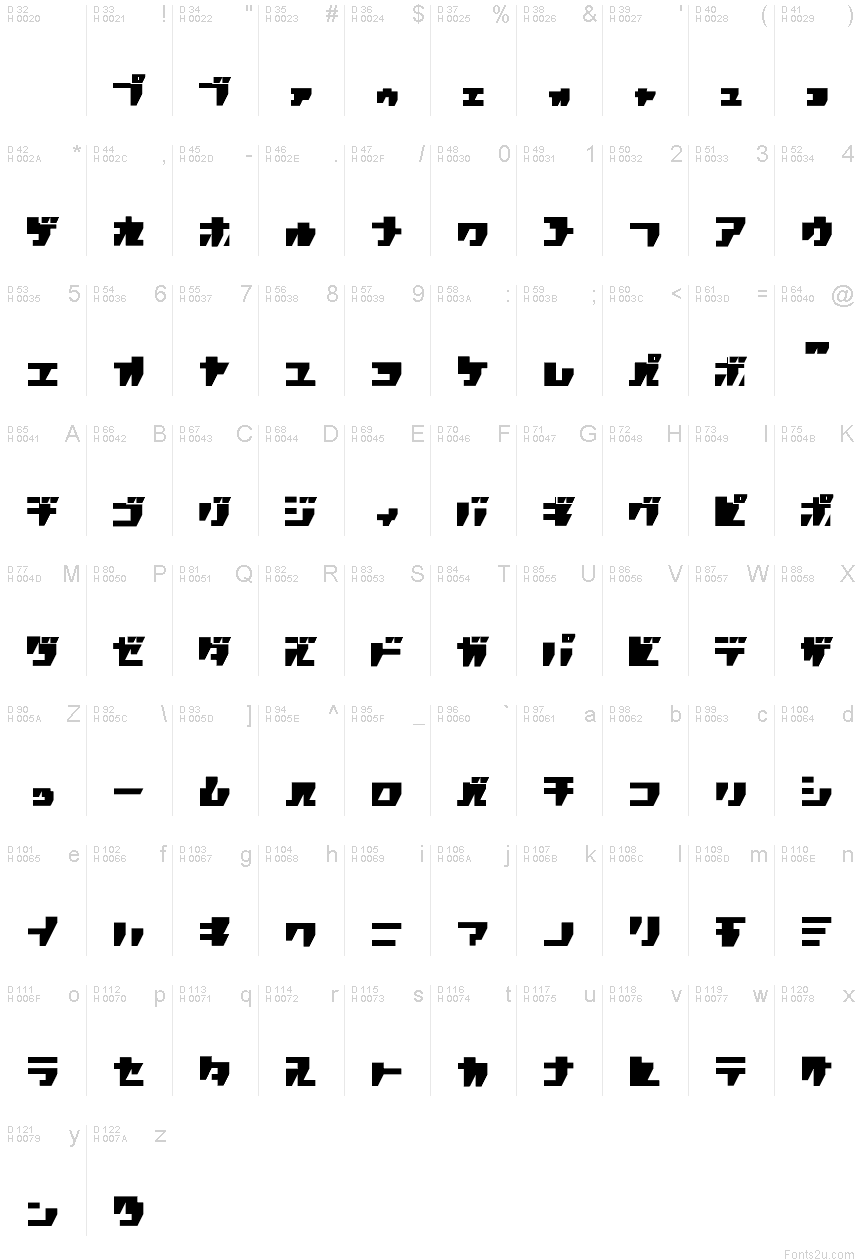
R.P.G. KATAKANA
R.P.G. Katakana, by Akihirooya Kozoji Nagoya, is a free Japanese display font with a loud arcade-era Katakana feel. The letters are built from chunky black blocks, with clipped corners and squared notches that make the alphabet feel like signage from a retro game screen rather than brush calligraphy.
It works well on posters, game titles, music artwork, streetwear graphics, and short branding where the sharp, modular rhythm can carry the whole message. As a free font, it also makes sense for title cards, logo sketches, and bold cover lines, especially when you want that hard-edged 1999 digital mood without slipping into a generic techno look.